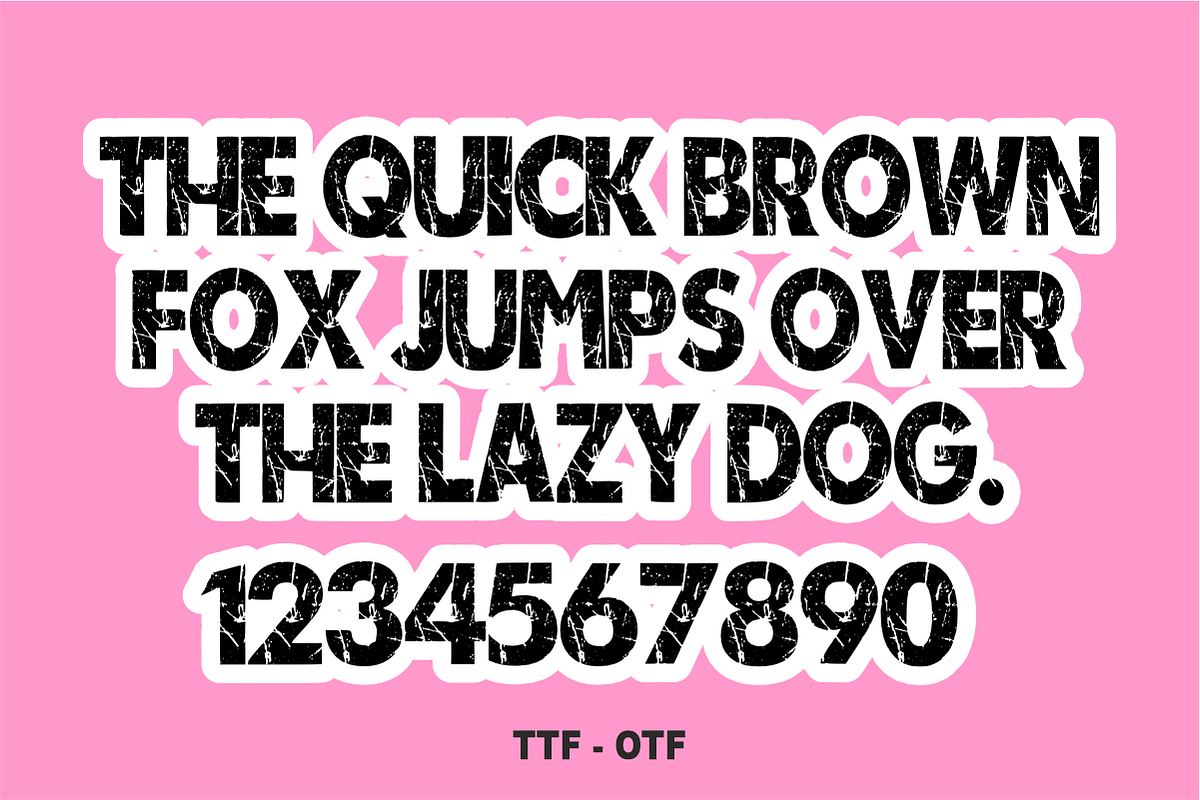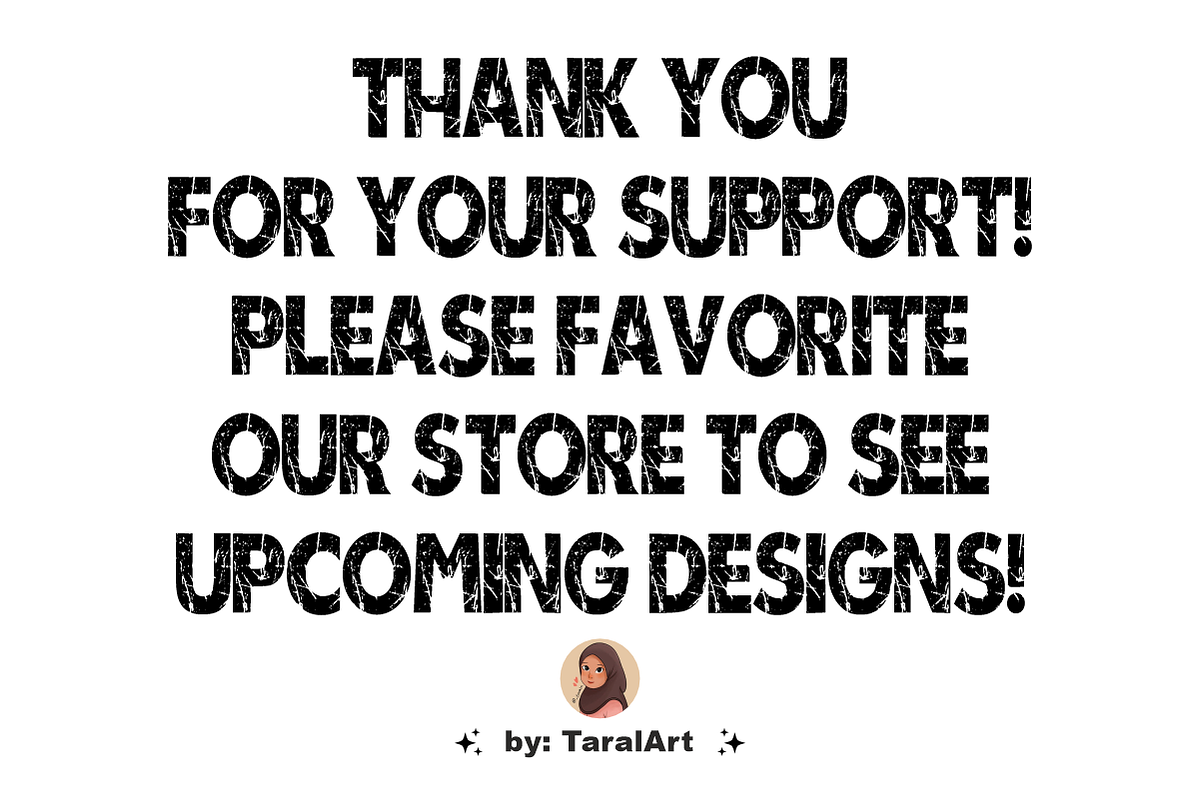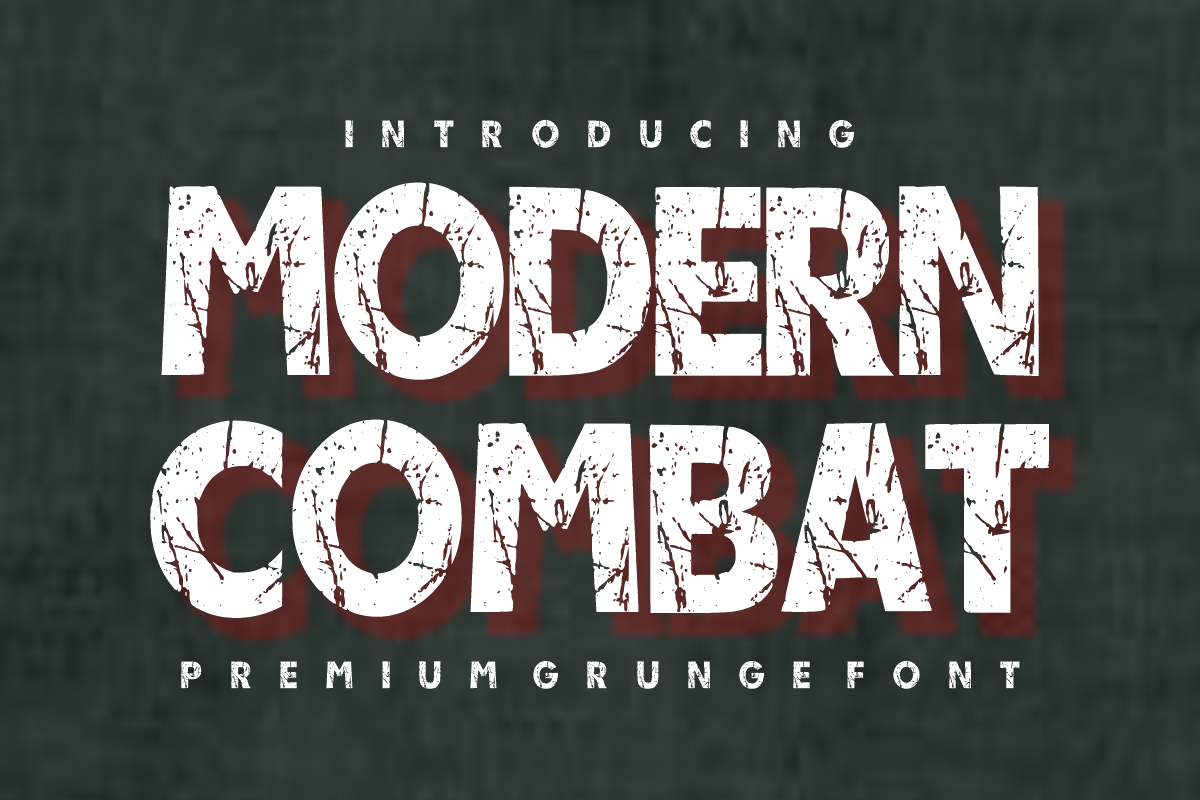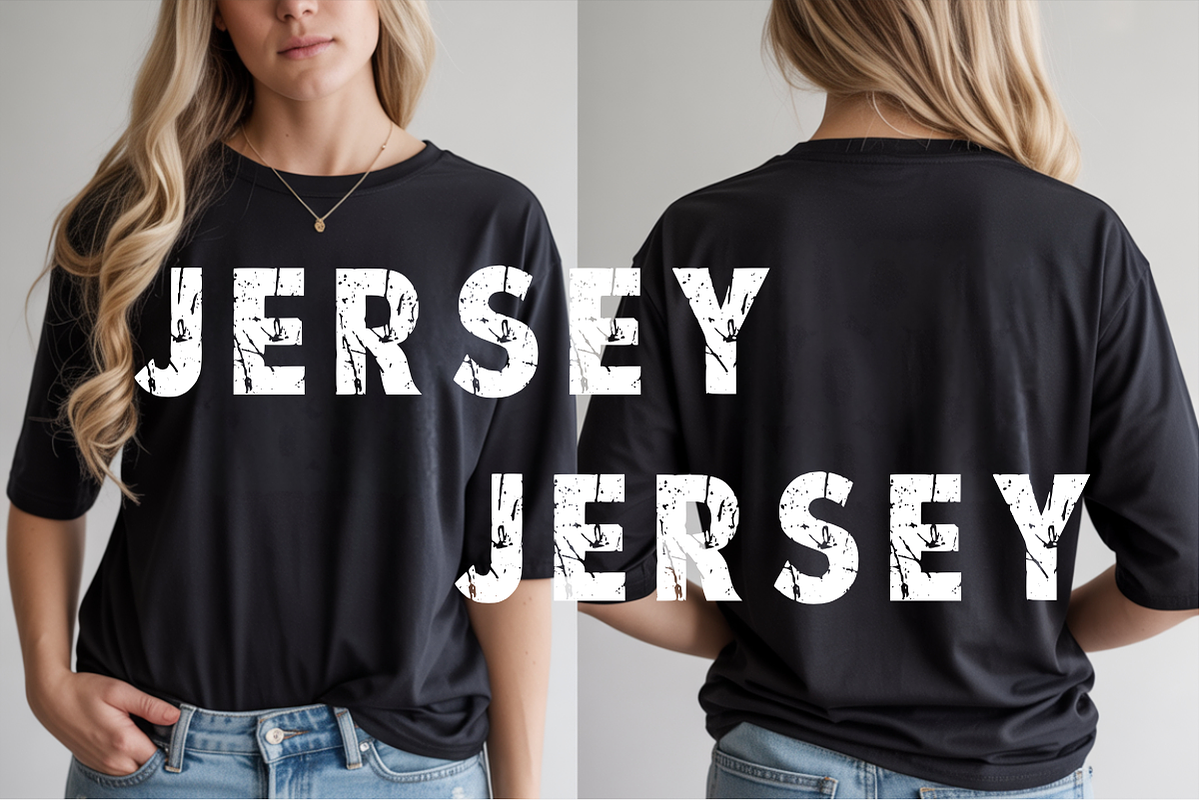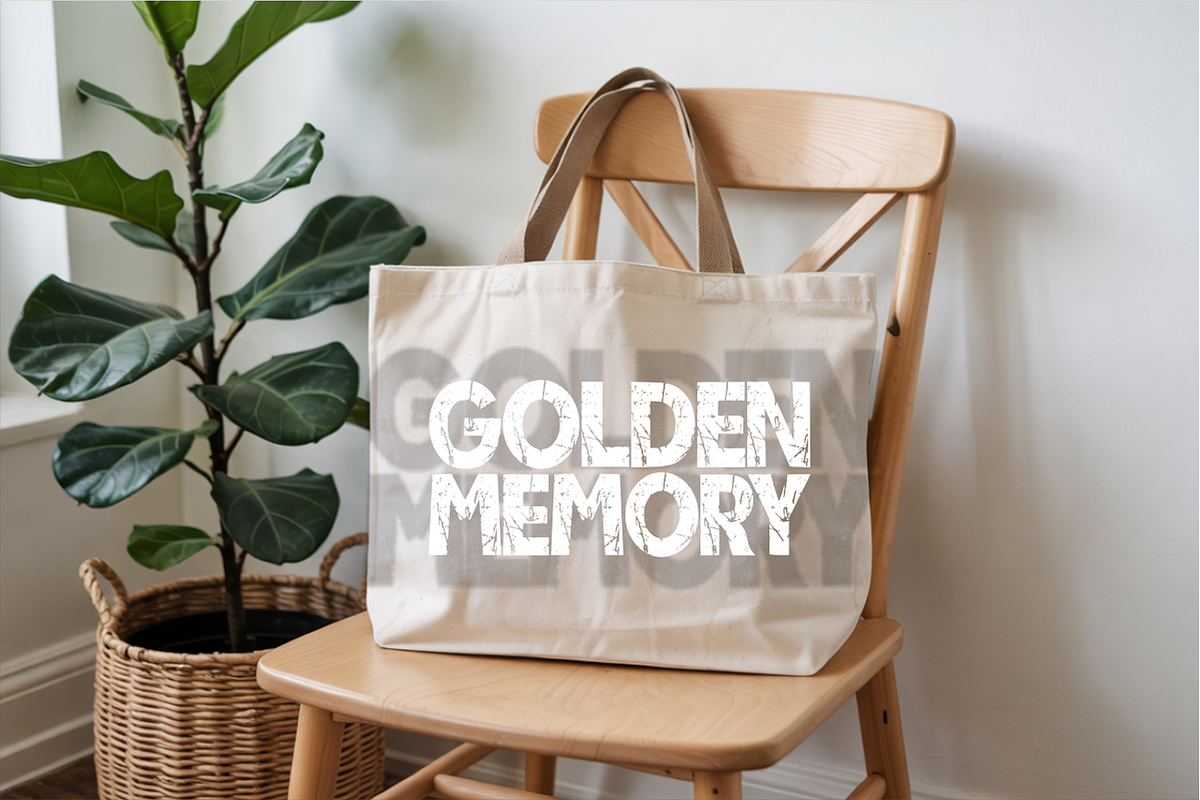
Modern Combat - Premium Grunge Font
Modern Combat is a bold, heavy display font featuring a powerful blocky structure and a realistic distressed grunge texture. Designed to bring a rugged, battle-tested energy to your layouts, this weathered font is perfect for high-impact headlines, action gaming graphics, and military-inspired branding. Every character maintains crisp outer paths to ensure clean rendering and effortless application.
Uppercase Character Set
Numbers & Basic Punctuation
Ideal For:
Esport logos, action gaming graphics, and streaming overlays
Military, tactical, and survival-themed product branding
Gym t-shirts, athletic apparel prints, and streetwear merchandise
Bold movie posters, book covers, and heavy metal album art
Striking social media headers, YouTube thumbnails, and flyers
Textured vinyl crafts and screen-printing projects